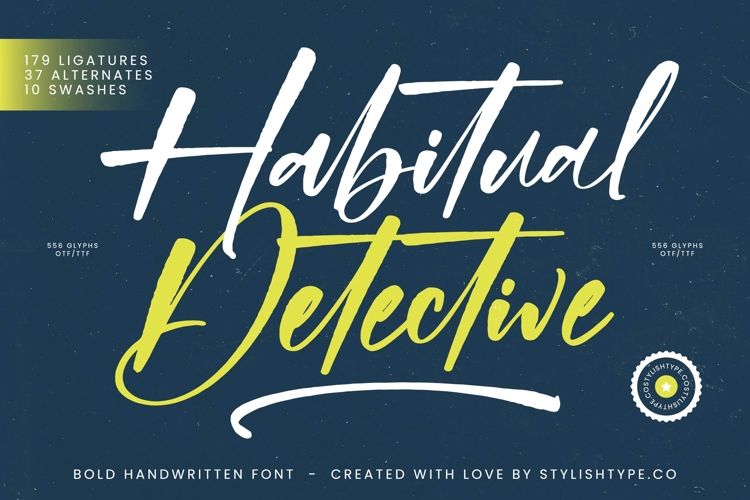
Habitual Detective - Bold Handwritten Font
Unleash an authentic, bold statement with Font Habitual Detective - Bold Handwritten Font Script, a typeface that effortlessly combines raw handwritten charm with impactful presence. This dynamic script font is meticulously crafted to infuse your designs with a sense of genuine personality and artistic flair. Its strong, expressive strokes and fluid connectivity make it an exceptional choice for projects demanding both individuality and compelling visual appeal, ensuring your message is not just seen, but felt.
Experience unparalleled creative versatility thanks to the expansive OpenType features embedded within Font Habitual Detective - Bold Handwritten Font Script. With an impressive collection of 179 ligatures, 37 alternates, and 10 swashes, designers gain profound control over typographic customization. These rich features enable the creation of truly unique and organic lettering, transforming standard text into captivating visual narratives and providing endless possibilities for customizable designs.
Extend your brand's reach globally with the inherent adaptability of this exquisite font. With its extensive multilingual support, Font Habitual Detective - Bold Handwritten Font Script adapts seamlessly across global markets, making it incredibly versatile for international projects. This ensures your message maintains its authentic appeal and global brand identity regardless of language, facilitating broader communication and connection.